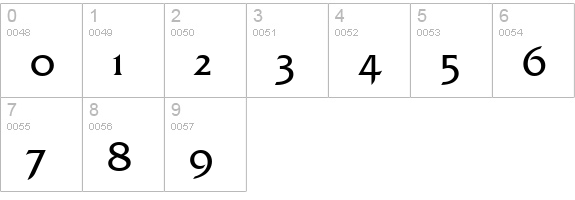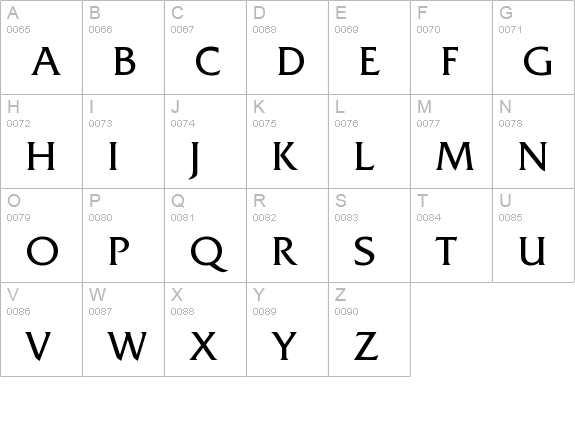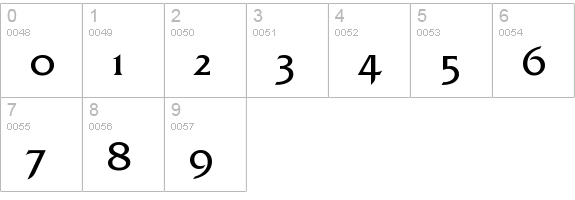
Fremont-Osf-Regular is the standard, neutral variant in the Fremont typeface family \xE2\x80\x94 well suited to general body text, paragraphs, and standard typographic work.
Fremont-Osf-Regular font is a modern and versatile typeface that is perfect for a wide range of design projects. With its clean lines and stylish appearance, this font is suitable for both display and text use. The font features a balanced combination of elegance and readability, making it ideal for various purposes such as branding, packaging, editorial design, and more. One of the best things about Fremont-Osf-Regular font is that it is completely free to download. You can get your hands on this stunning font at FontsMarket.com without any cost. So, whether you are a professional designer or a casual hobbyist, you can easily access this font and enhance your creative projects with its unique style and flair. Don't miss out on the opportunity to add Fremont-Osf-Regular font to your font library today. Download it for free at FontsMarket.com and start creating visually appealing and impactful designs that stand out from the crowd.